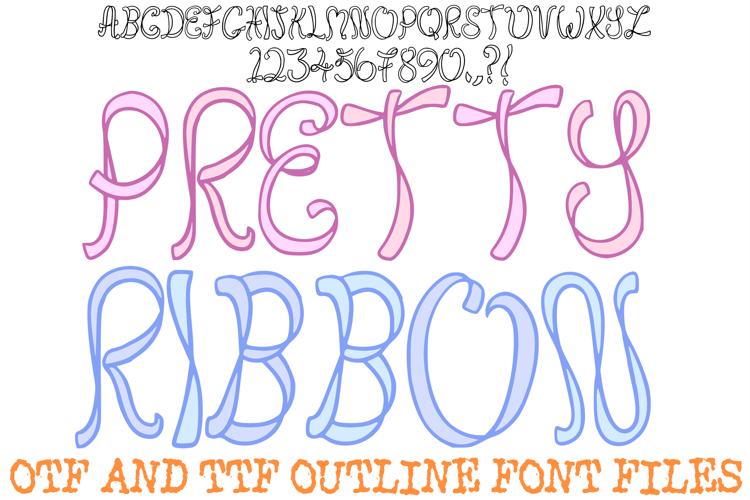
Pretty Ribbon Font Hand Drawn Swirly Lettering ABC OTF Type
The Pretty Ribbon Font is an elegant, hand-drawn display typeface that captures the graceful, flowing movement of silk ribbons. Featuring delicate loops and swirly flourishes, this font is the perfect choice for feminine branding, wedding stationery, ballet-themed decor, and sophisticated "coquette" aesthetic designs.
Each character is meticulously crafted with a fluid, artisan feel, blending soft curves with a light, airy weight that makes your text appear as if it were tied by hand. Whether you are a designer creating boutique packaging or a crafter working on personalized gifts, the Pretty Ribbon Font adds a timeless, romantic touch to every project.
Artisan Swirly Lettering: Every letter (A–Z) and number (0–9) features unique ribbon-like folds and delicate curling tails.
Clean Hand-Drawn Outlines: The slender, well-defined black outlines are optimized for coloring, heat transfer vinyl, and high-quality sublimation.
Elegant & Versatile: The light weight and swirling aesthetic make it ideal for nursery art, beauty branding, and elegant holiday decor.